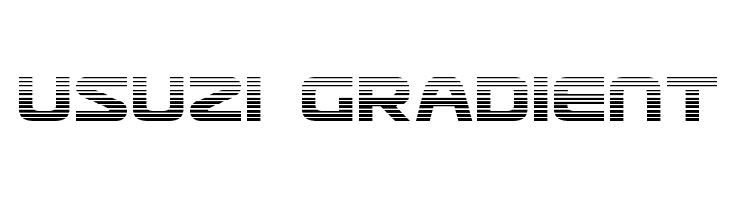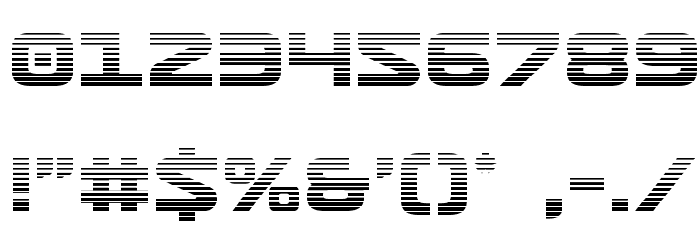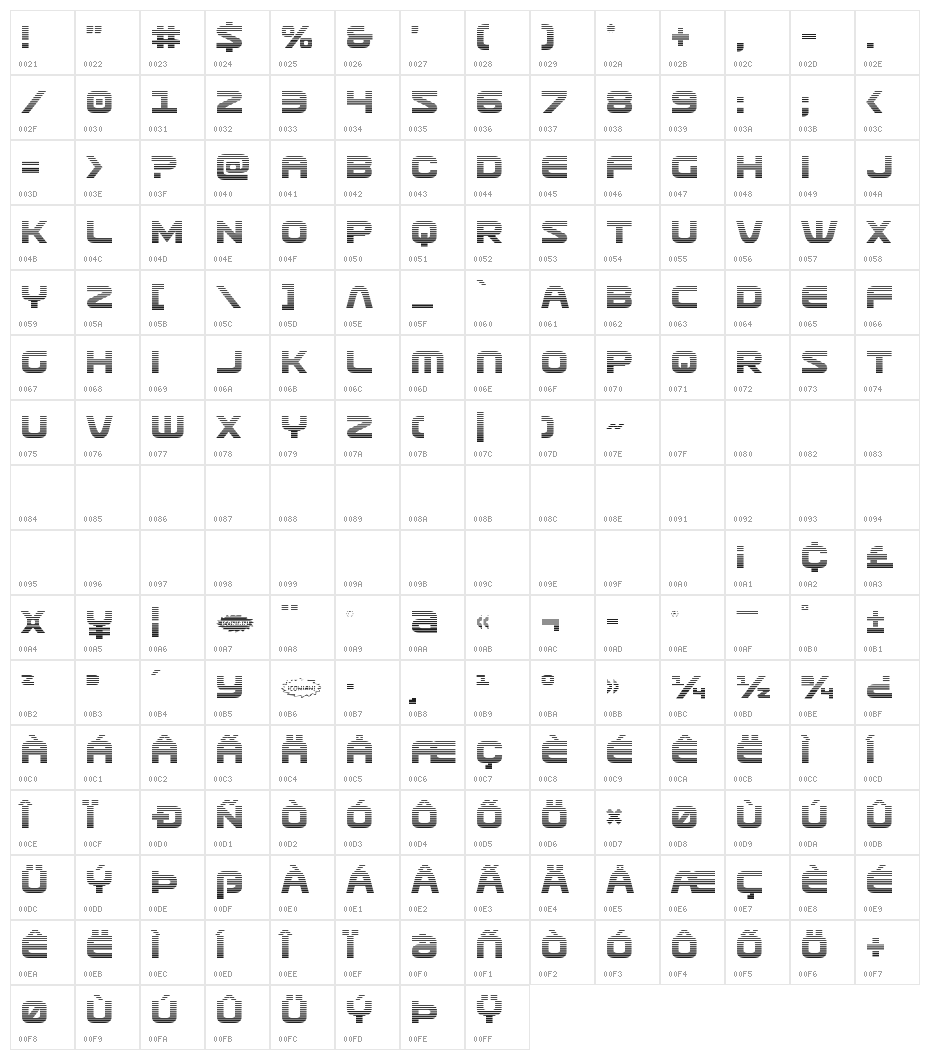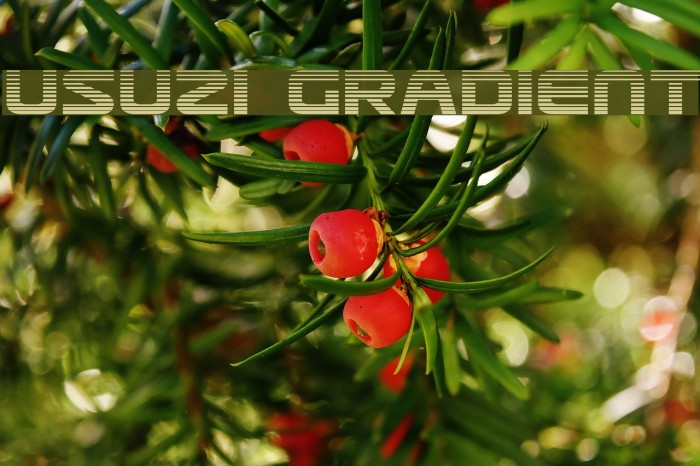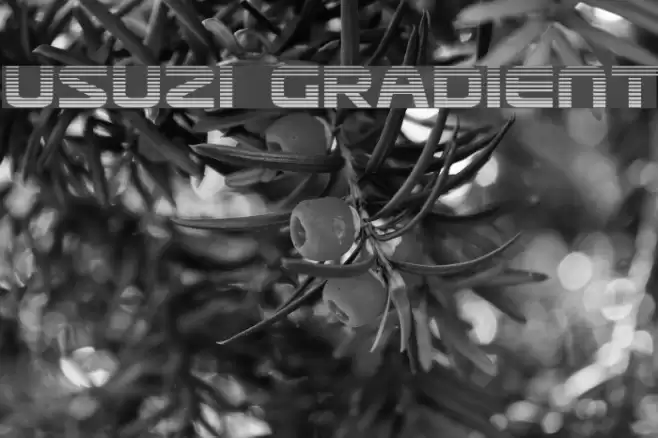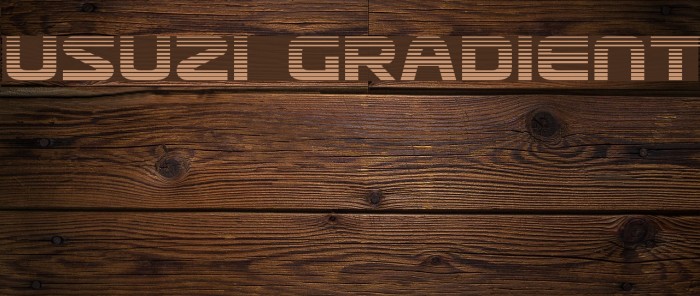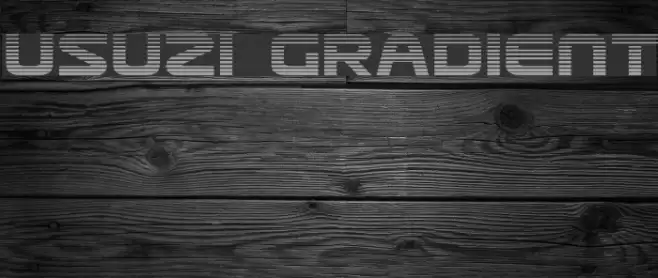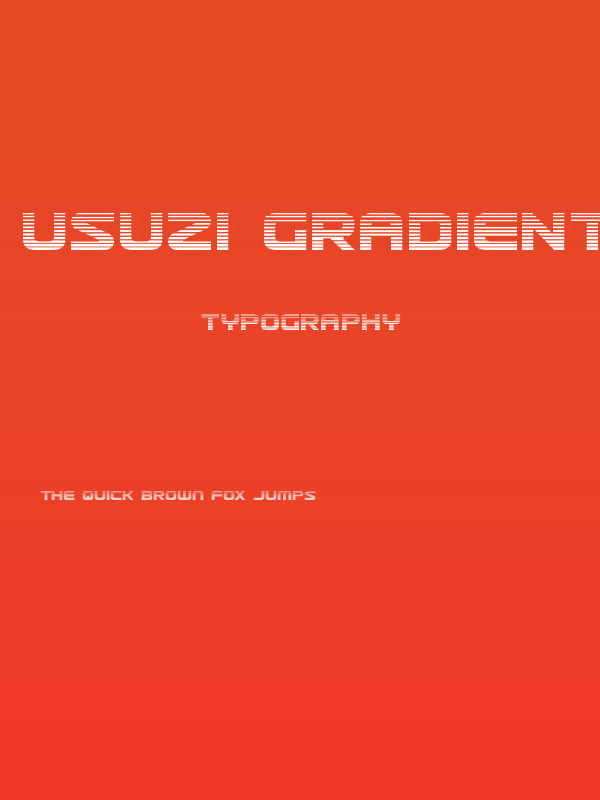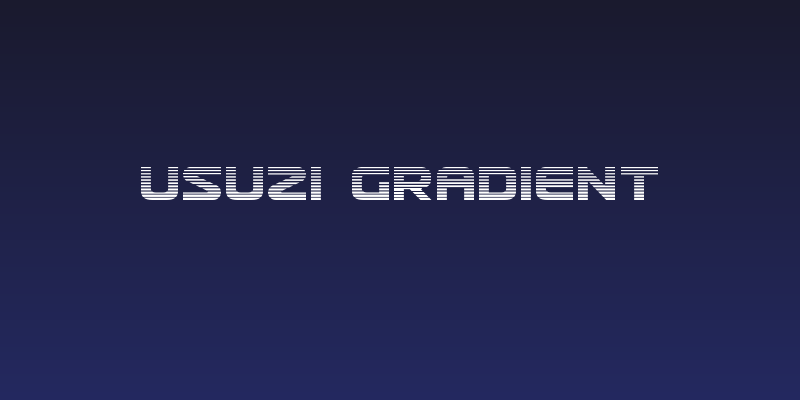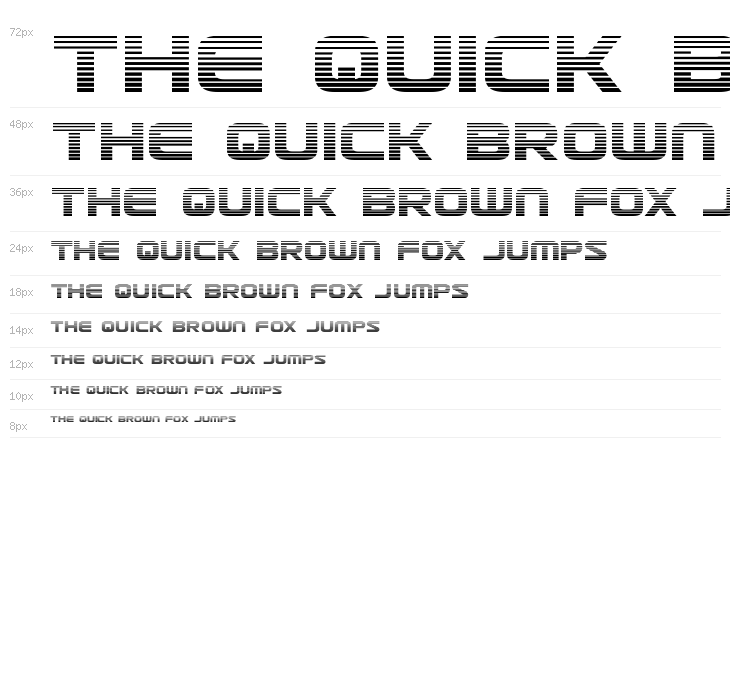
Usuzi Gradient Font
Usuzi Gradient Description
This font features a unique striped pattern that gives it a modern and futuristic appearance. The characters are bold and wide, with horizontal lines running through each letter and number, creating a sense of movement and dynamism. The uppercase and lowercase letters maintain a consistent style, ensuring uniformity across different text applications. The numerals and special characters are designed with the same striped effect, making them stand out while maintaining readability. This font is ideal for projects that require a contemporary and eye-catching design.
| Proposed Projects | Ideal for futuristic branding, tech-related designs, and modern advertising campaigns. |